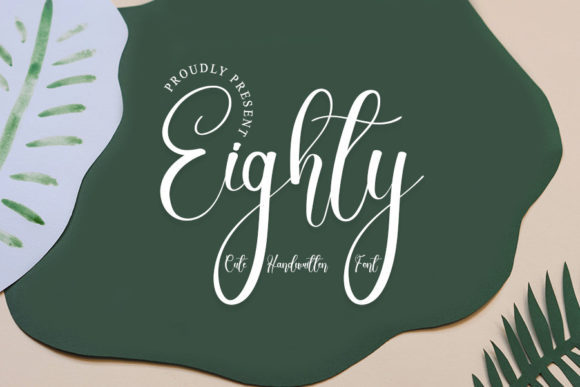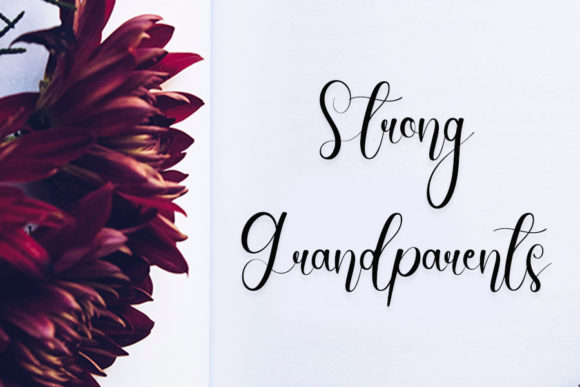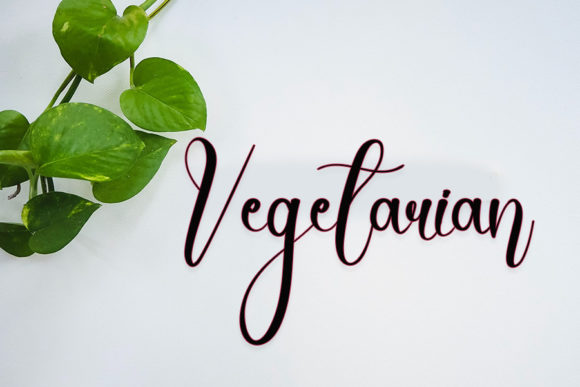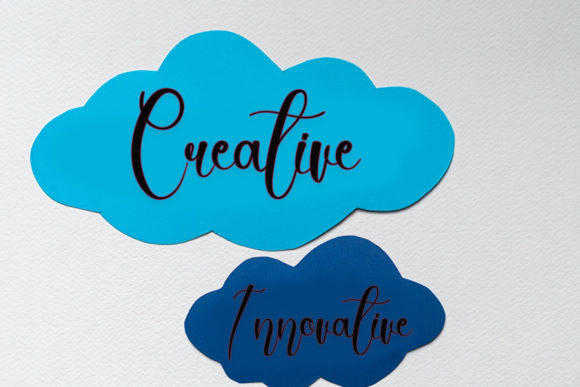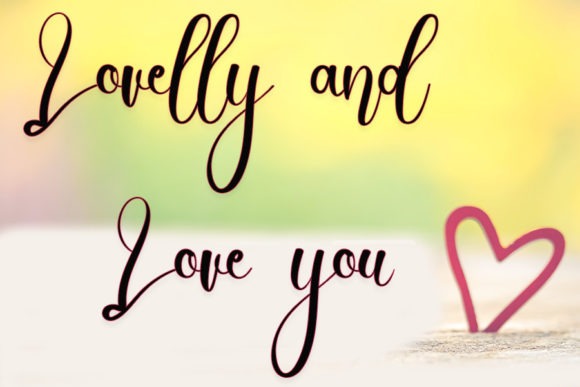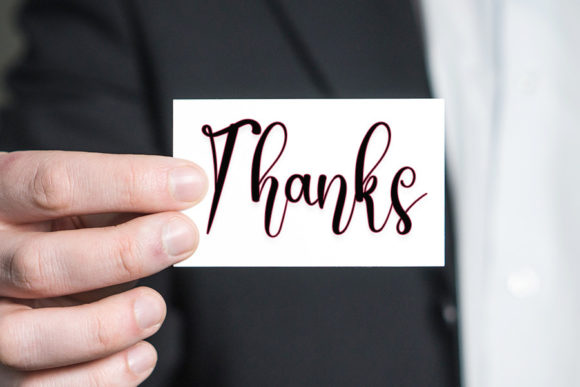
Eighty Font
About Eighty Font
Eighty is a friendly handwritten font, carefully designed to become a true favorite. It maintains its classy calligraphic influences while feeling contemporary and fresh.